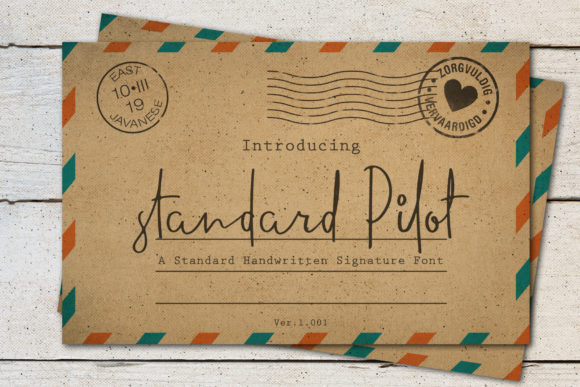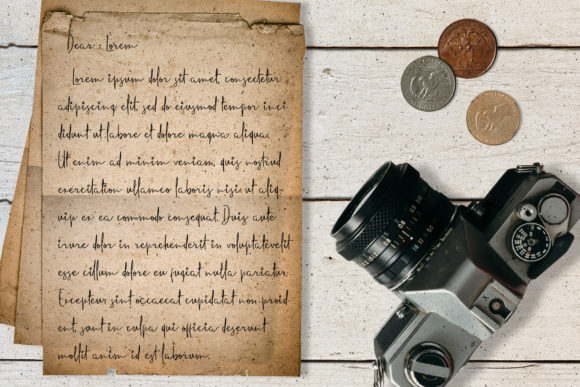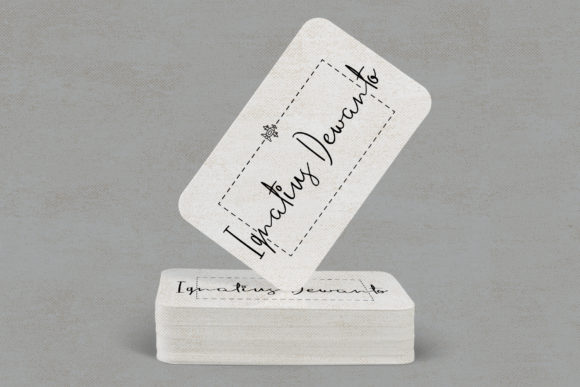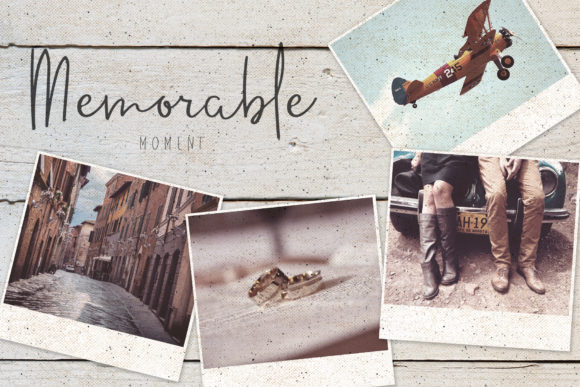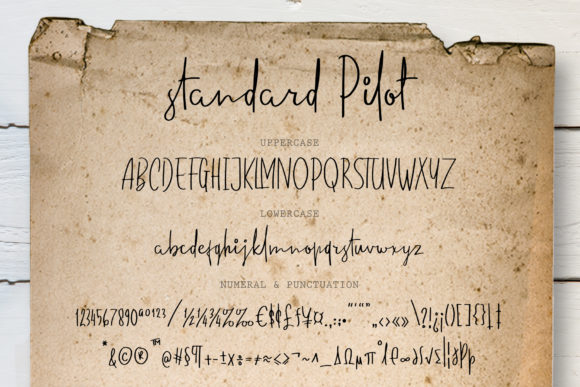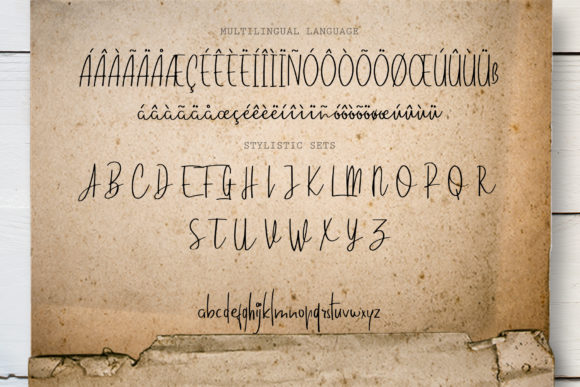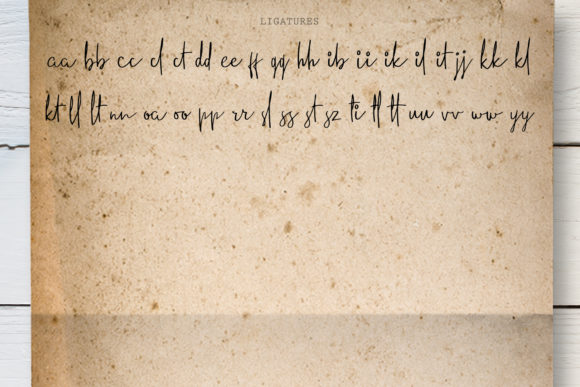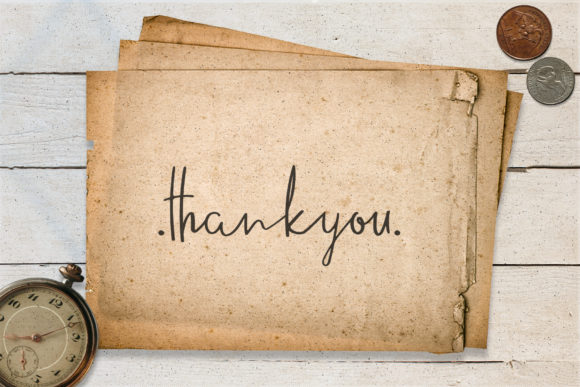
Standard Pilot Font
The Standard Pilot is an amazing handwritten font. It was inspired by the natural writing style of ballpoints.
It’s highly recommended for logos, self branding, prints, and every other design which needs a natural handwritten style.